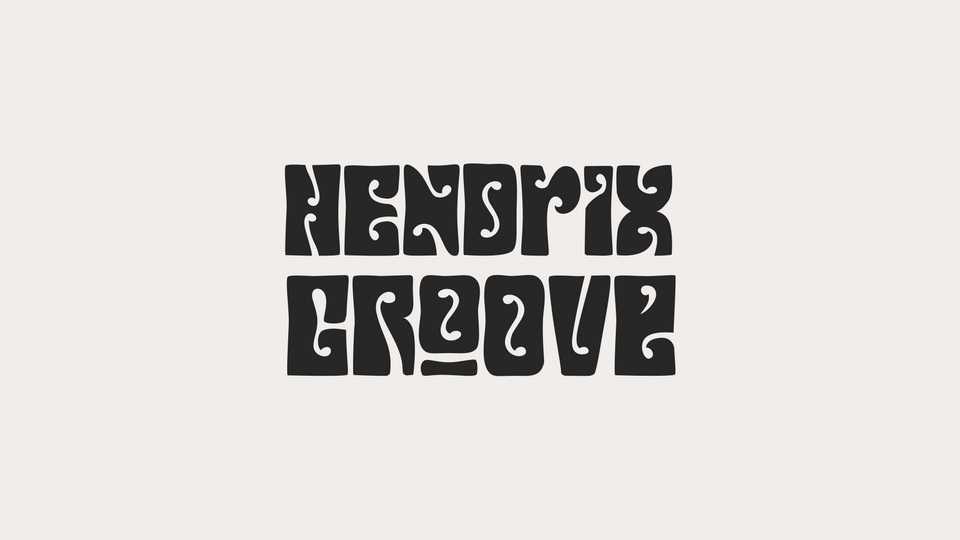
Download Hendrix Groove font, a funky retro display typeface with an original vintage-styled look. With Hendrix Groove you’ll never get bored! Download NOW, and shake that booty!
Designer: NamiStudio